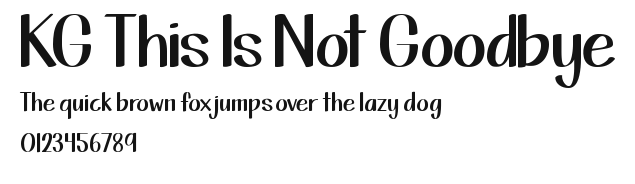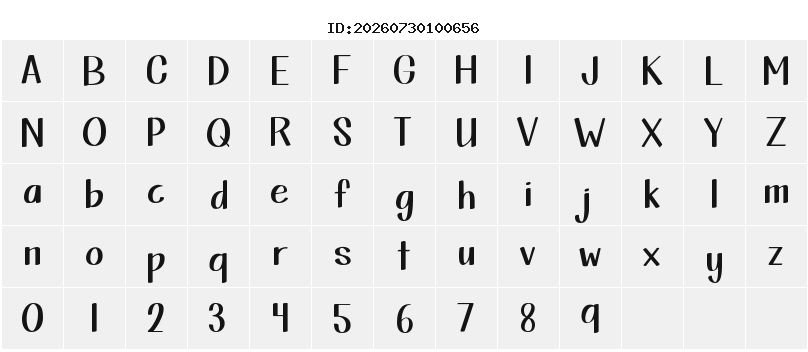
KG This Is Not Goodbye Preview
• Font Name: KG This Is Not Goodbye
• Font ID: KimberlyGeswein: KG This Is Not Goodbye: 2012
• Full Font Name: KG This Is Not Goodbye
• Version: Version 1.000 2012 initial release
• PostScript Name: KGThisIsNotGoodbye
• Character Count: 324
• Designer: Kimberly Geswein
• Manufacturer: Kimberly Geswein
About KG This Is Not Goodbye.ttf
KG This Is Not Goodbye.ttf is a modern, elegant sans-serif font designed for ultimate readability and visual harmony. Perfect for branding, headlines, web design, and print materials.